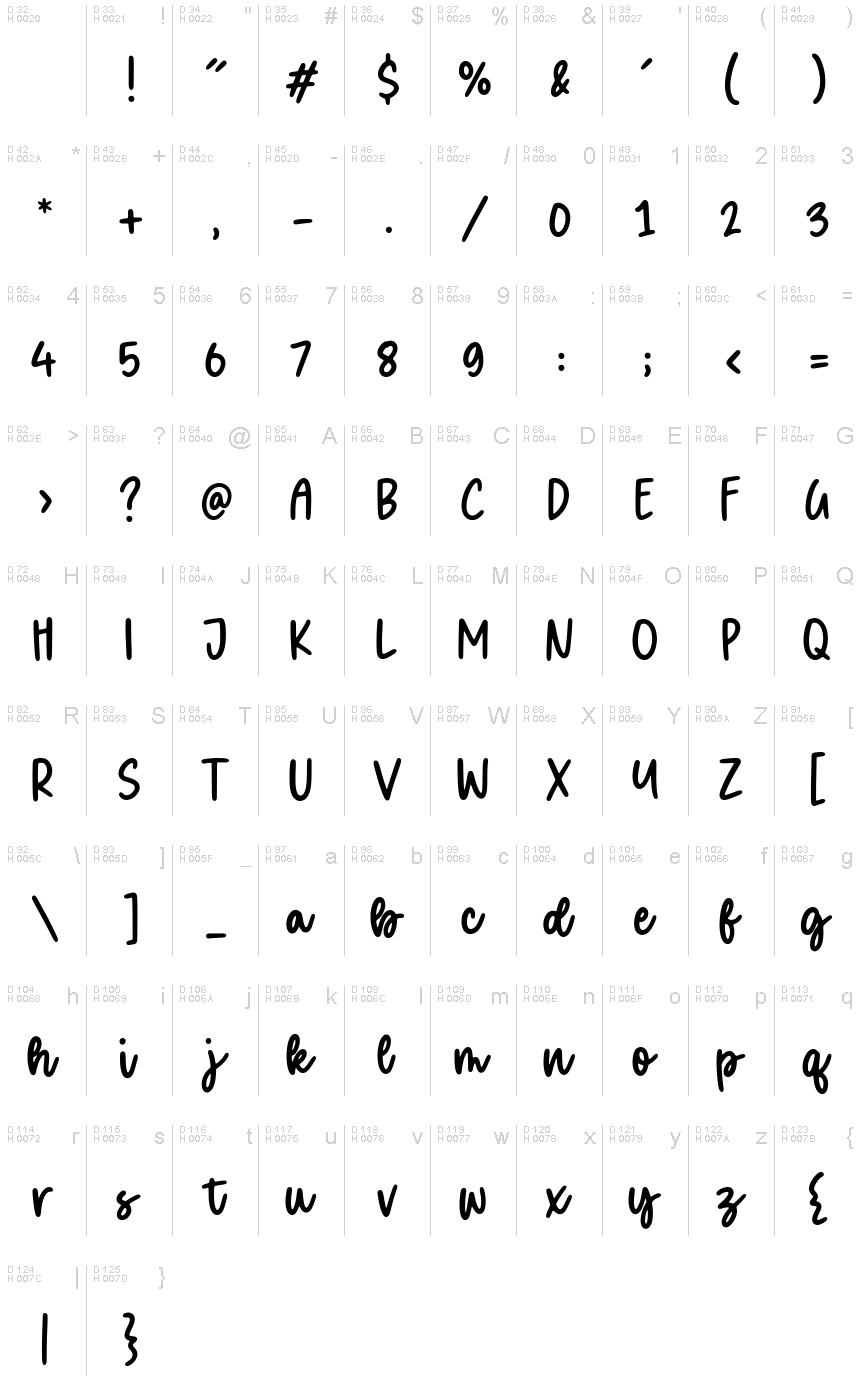
Roleyfox
Roleyfox font by Balpirick Studio is a casual, playful, and expressive free handwritten font. The modern script carries an informal look, ideal for additions to projects where direct connection is to be made with the person in question. With a display that stands out without trying too hard and effortlessly draws attention - all you’ll want to do is utilize Roleyfox.
Applications where you can consider the typeface are restaurant menu covers, real estate flyers, business cards, underlining fashion items, quotes typography posts on social media as Instagram or Pinterest. Designers can start integrating it within greeting cards & invitations design and also combine it with pastel-themed illustrations on product & packaging label design for superior results!